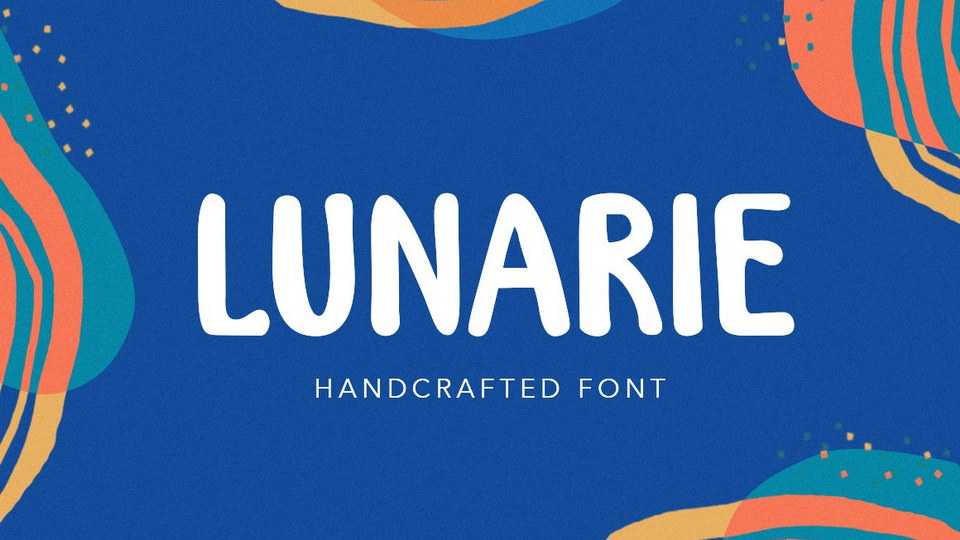
Download Lunarie font, a friendly and fun handwritten typeface with a whimsical feel. Lunarie is the ideal font for any kids projects, crafts, games and more.
Designer: Solidtype